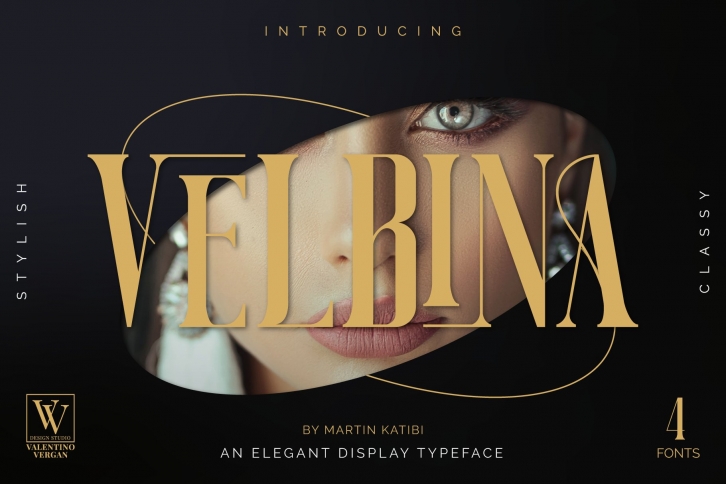
Velbina is a beautiful luxurious display typeface, which comes with creative and elegant ligatures. The Velbina typeface has a sophisticated and professional look and feel, its unique alternative characters make it perfect for luxury-themed projects. The Velbina typeface comes in two styles, Regular and Stencil, each style has an oblique version.
• Velbina Regular
• Velbina Oblique
• Velbina Stencil
• Uppercase and lowercase letters.
• Numerals.
• Punctuation.
• Ligatures.
• Alternates.
• Multilingual Symbols.